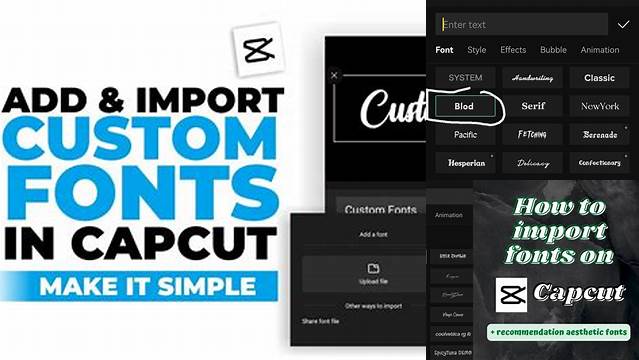
CapCut Fonts Tutorial: Add And Customize Text Like A Pro
Hey guys! Ever wondered how to make your CapCut videos stand out with cool fonts? Well, you're in the right place! This CapCut fonts tutorial is designed to help you master the art of text customization. We'll dive deep into everything from adding fonts, changing styles, and even importing your own unique fonts. Whether you're a beginner or a seasoned video editor, get ready to level up your CapCut game and transform your videos from basic to breathtaking with eye-catching text. Let's get started!
Understanding CapCut and Its Text Features
Alright, before we jump into the nitty-gritty, let's make sure we're all on the same page. CapCut, for those who might be new to the party, is a powerhouse mobile video editing app. It's super user-friendly, packed with features, and totally free (with some optional in-app purchases). One of the coolest things about CapCut is its versatile text editing options. You can add text overlays, captions, titles, and so much more to your videos. The app provides a bunch of pre-loaded fonts and styles, and as you'll see, you can customize them to fit your vision.
When you tap that 'Text' button, you're opening up a world of possibilities! You can choose from the many built-in fonts, adjust the size, color, and position of your text. You can also add shadows, backgrounds, and animations to make your text pop. But wait, there's more! You can also use templates to get started quickly or even import your own custom fonts. The beauty of CapCut lies in its simplicity and flexibility. It's perfect for everything from creating short social media clips to longer, more complex videos. So, grab your phone, fire up CapCut, and let's get to it. I'm so excited to teach you how to add CapCut fonts. Trust me, by the end of this, you'll be a text-editing wizard. Get ready to learn how to boldly express yourself with text in your videos. Ready to transform your video? Let's go!
The Basics: Adding and Editing Text
Once you've added your text, you can start customizing it. Tap on the text box, and you'll see a bunch of editing options pop up. These options include Font, Style, Effects, Animation, and more. Tapping on 'Font' will open up the font selection panel, where you can scroll through the available fonts and choose the one that suits your video. If you want to adjust the style, tap on 'Style'. Here, you can change the color, size, and position of your text. You can also add a background to make your text more visible. If you want to make your text more dynamic, use 'Effects'. This is where you can add shadows and borders to your text. You can also choose from a bunch of preset styles. Finally, to make your text move, use 'Animation'. Choose from a variety of animations to make your text appear, disappear, or move across the screen. Experiment with these options, and don't be afraid to play around. The best way to learn is by doing!
Choosing the Right Font: Font Selection and Styles
Okay, now that we've covered the basics, let's talk about choosing the right font. Selecting the right font is crucial because it can significantly impact the overall look and feel of your video. In CapCut, you have a variety of fonts to choose from, each with its unique style and personality. But how do you know which one is right for your video?
First, consider the mood and tone of your video. Is it a fun and playful video, or is it a serious and professional one? If it's a playful video, you might want to choose a font that is bold and attention-grabbing. If it's a professional video, you might want to choose a font that is clean and elegant. Next, think about readability. Make sure the font you choose is easy to read, especially on a small screen. Avoid fonts that are too thin, ornate, or stylized. Your text should be clear and easy to understand. Also, consider the overall design of your video. The font should complement the other design elements in your video, such as the colors, images, and videos. You want everything to work together harmoniously.
CapCut offers a wide range of font styles, from simple sans-serif fonts to more elaborate and decorative fonts. You can choose from a variety of categories, such as basic, handwriting, and display fonts. You can also adjust the size, color, and spacing of your text to customize it further. Don't be afraid to experiment! Try out different fonts and styles to see what looks best. Also, consider where you're posting your video. If you're posting on social media, you might want to use a font that is more eye-catching. If you're posting on YouTube, you might want to use a font that is more professional. The best way to choose the right font is to experiment. Try out different fonts and styles to see what works best. Consider the mood and tone of your video, as well as readability and the overall design. With a little experimentation, you'll be able to find the perfect font for your videos! Let's make sure you pick the perfect font.
Font Customization: Size, Color, and More
Alright, now that you have a good understanding of font selection, let's talk about font customization. CapCut gives you a lot of freedom to customize your fonts to fit your video's unique style.
First, let's talk about size. You can adjust the size of your text by dragging the text box handles. You can also use the size slider to make precise adjustments. The font size is important. Make sure your text is large enough to be readable, but not so large that it distracts from the video itself. Next, let's talk about color. CapCut provides a wide range of color options for your text. You can choose from a preset color palette or use the color picker to select a custom color. You can also adjust the opacity of your text to make it more or less transparent. Color is very important. Choose colors that complement your video and create visual interest. Let's talk about the style, too. You can adjust the style of your text by adding a shadow, outline, or background. Shadows and outlines can make your text more visible, while backgrounds can add visual interest. Make sure the style you choose complements your video.
You can also adjust the spacing of your text. You can adjust the letter spacing to create a more or less spaced-out look. You can also adjust the line spacing to create more or less space between lines of text. Spacing can improve readability, so make sure you choose the right amount of spacing. Finally, let's talk about alignment. You can align your text to the left, right, or center. The alignment you choose depends on the layout of your video. The best thing to do is to experiment with different combinations of size, color, style, spacing, and alignment until you find the perfect look for your videos. The possibilities are endless! With a little practice, you'll be able to customize your fonts like a pro. Remember to keep experimenting to find what you like best. Let's take a look at the magic tricks to make your video the most stunning yet!
Adding Flair: Text Effects and Animations
Okay, let's take your text game to the next level with text effects and animations! This is where your text truly comes alive and grabs the viewer's attention. CapCut offers a variety of options to make your text pop, from subtle effects to bold animations. Let's break it down.
First, let's talk about text effects. CapCut has a bunch of pre-set styles that you can apply to your text with a single tap. These effects can add a shadow, outline, or background to your text. They can also give your text a unique look and feel. You can try out various effects until you find one that suits your video. You can customize the effects to fine-tune their appearance. Next, let's talk about animations. This is where your text comes alive. CapCut offers a variety of animation options for your text. These animations can make your text appear, disappear, or move across the screen. You can choose from animations like fade-in, slide-in, or zoom-in. You can also control the duration of the animation and the speed at which it plays.
Adding animations is a great way to emphasize specific words or phrases or to add visual interest to your videos. When choosing effects and animations, make sure they complement your video's overall style and tone. Don't overdo it! Too many effects or animations can be distracting and take away from the video's message. Choose effects and animations that add visual interest without being distracting. Experiment with different combinations of effects and animations until you find the perfect look for your videos.
Dynamic Text: Animation and Presets
Let's talk about dynamic text! Text animation in CapCut is where the real fun begins. You can bring your text to life with various animations that make it pop, slide, fade, or bounce onto the screen. CapCut offers a wide array of animation presets. You can use these to add movement and dynamism to your text.
To apply an animation, select your text layer, tap on the 'Animation' option. You'll see a variety of pre-set animations that you can apply to your text. There's an 'In' animation for how the text appears on the screen, an 'Out' animation for how it disappears, and a 'Loop' animation for continuous movement. Experiment with different animations until you find ones that enhance your video's message and style. You can also adjust the duration and speed of the animation to fine-tune its appearance. Speed control allows you to fine-tune the speed of the animations. If you want something subtle, reduce the speed. If you want something flashy, increase the speed!
When you add text animation, think about the purpose of your text. Does it introduce a concept? Is it a call to action? The right animation can make your text even more effective. Remember, you can combine different animations and effects to create custom looks. Don't be afraid to get creative and experiment! I promise you that you will be a text animation master in no time. Let's make sure that your video truly speaks to the audience.
Importing Custom Fonts: Going Beyond the Basics
Alright, let's dive into something extra cool: importing custom fonts! While CapCut provides a great selection of fonts, sometimes you want something unique, something that truly reflects your style. This is where custom fonts come in.
The first thing to know is that CapCut supports the import of custom fonts, but it's a bit of a workaround. You'll need to have the font files, usually in the .ttf or .otf format, saved on your device. The process involves accessing your files through the app. Once you have your font files, there are several ways to import them into CapCut. One popular method is to use a file manager app on your phone to locate the font files and then open them with CapCut. This will install the font within the app. Alternatively, you might find that the font is automatically added to CapCut's list of available fonts if it's saved in the right folder on your device. The folder structure may vary, so some research might be needed.
Once your custom fonts are imported, they'll appear in the font selection panel alongside the pre-loaded fonts. Keep in mind that the availability of this feature and the exact process might vary depending on your device and the CapCut version. If you're having trouble, don't worry! Search online for tutorials specific to your device and CapCut version. Remember to respect font licensing. Make sure you have the proper rights to use the fonts you import. This is crucial for avoiding copyright issues. With custom fonts, your videos can truly stand out. You'll have the flexibility to match any style or aesthetic you can imagine. I'm so excited for you!
Step-by-Step Guide to Importing Fonts
Okay, let's break down how to import your own custom fonts step by step. Here's a general guide, but keep in mind that the exact steps may vary slightly based on your device (Android or iOS) and the CapCut version you're using.
Step 1: Get Your Font Files
First things first, you need to have your font files. These are usually in .ttf (TrueType Font) or .otf (OpenType Font) format. Download your desired fonts from a reliable source, like Google Fonts or any other website that offers free or licensed fonts. Make sure you are following the licensing rules.
Step 2: Locate the Fonts
Once you've downloaded your font files, make sure you know where they are saved on your device. Most likely, they'll be in your 'Downloads' folder. On Android, you can usually access your files through a file manager app. On iOS, you might need to save the font file to the 'Files' app. If you're having trouble finding your font files, try searching online for the best way to get your fonts into your device.
Step 3: Open in CapCut
Open CapCut and start a new project or edit an existing one. Tap on the 'Text' button and add some text to your video. Tap on the 'Font' option to open the font selection panel.
Step 4: Install and Apply
If your font is in a folder on your device, you will need to navigate to that location. Then, you will need to tap on the font you would like to add to the video. Try to locate the import option. It might be represented by a plus sign, an upload icon, or something similar. Once you've located your font, tap on it to import it into CapCut. Your custom font should now appear in the list of available fonts. Select the font to apply it to your text. You've done it! You can now use your custom font in your video. Congratulations! I'm super proud of you.
Pro Tips: Enhancing Your Text Game
Alright, let's wrap things up with some pro tips to really make your text stand out. These are some advanced techniques that can help you create visually stunning text overlays in your videos.
Tip 1: Layering Text. Try layering multiple text boxes to create unique effects. For example, you can layer a solid-colored background with a semi-transparent text overlay to add depth and visual interest. You can also use this technique to create a shadow effect by placing a slightly offset text box behind your main text. Tip 2: Color Coordination. Choose colors that complement your video's visuals. Use color theory to create visually pleasing text overlays. For example, consider using contrasting colors for high visibility or using analogous colors to create a harmonious look. Tip 3: Dynamic Text Placement. Avoid static text! Use keyframes to animate the position, scale, or rotation of your text. Doing this will make your text more engaging. You can make your text move across the screen, zoom in or out, or rotate, among other things. Tip 4: Text and Visual Harmony. Make sure your text complements the other elements in your video, such as the video clips, music, and sound effects. You want everything to work together in harmony to convey your message effectively. Tip 5: Experiment and Practice. The best way to become a text master is to experiment. Try out different fonts, styles, effects, and animations until you find what works best for your videos. Don't be afraid to play around and get creative!
By following these pro tips, you'll be well on your way to creating videos with text overlays that truly stand out. Now go out there and create some amazing videos! You've got this!
It's not always smooth sailing, and sometimes you might run into some issues. Let's go over some common problems and how to fix them.
Issue 1: Font Not Showing Up.
If your imported font isn't showing up in the font list, double-check that the font file is in the correct format (.ttf or .otf) and that it's in a location that CapCut can access. Make sure you have the latest version of CapCut installed. Sometimes, updating the app can fix compatibility issues. Restart the app or your device. This can sometimes help the app recognize the new font files.
Issue 2: Text Is Blurry or Pixelated.
Ensure you're using a high-resolution video and exporting your video in a high-quality format. Adjust the text size. Sometimes, smaller fonts can appear blurry. Make the text bigger so you can see the details. Check the position of your text. Make sure it's not too close to the edge of the screen or overlapping other elements.
Issue 3: Text is Cropped.
Check your text box size. Make sure the text box is big enough to display the entire text. Adjust the text alignment. If your text is long, consider using multiple lines or shortening the text. If you still run into issues, search online for help. Many user forums and communities can assist you.
Conclusion: Unleash Your Inner Text Artist
Alright, that wraps up our CapCut fonts tutorial! I hope you've learned a lot and are now excited to get creative with text in your videos. We've covered everything from the basics of adding and editing text to choosing the right fonts, adding text effects, and even importing your own custom fonts.